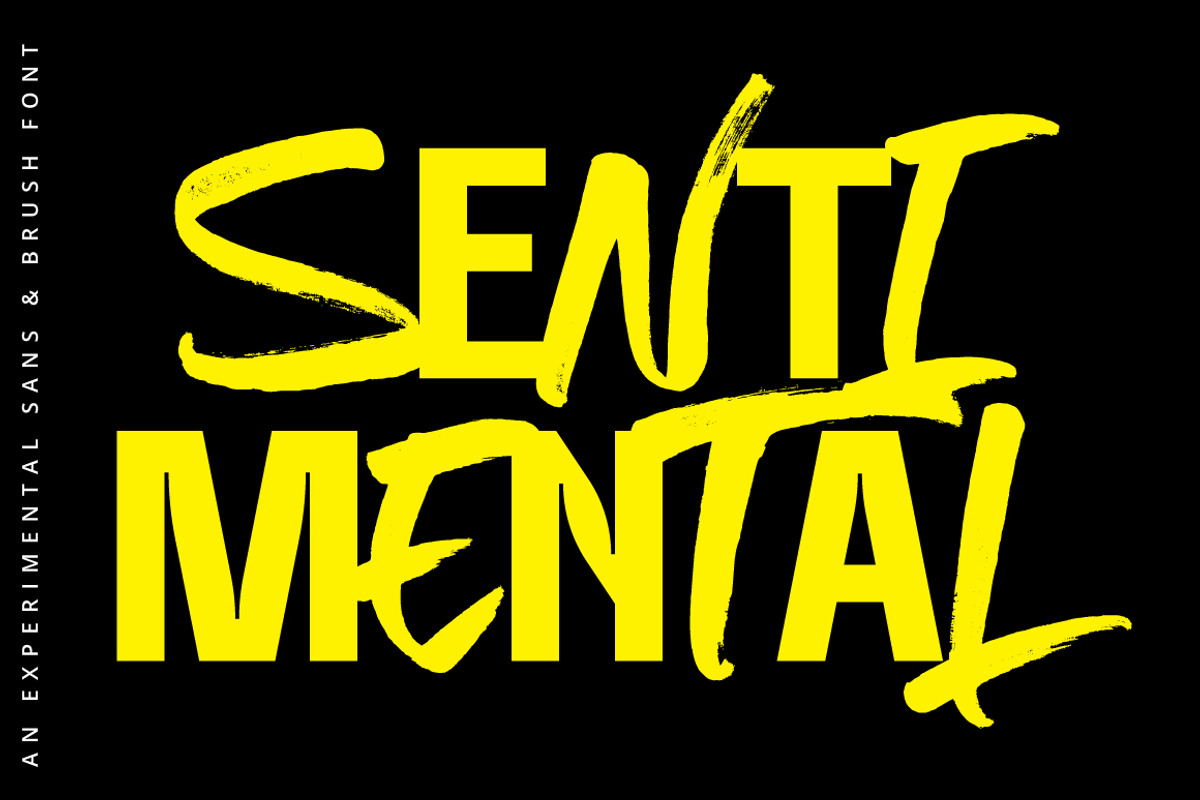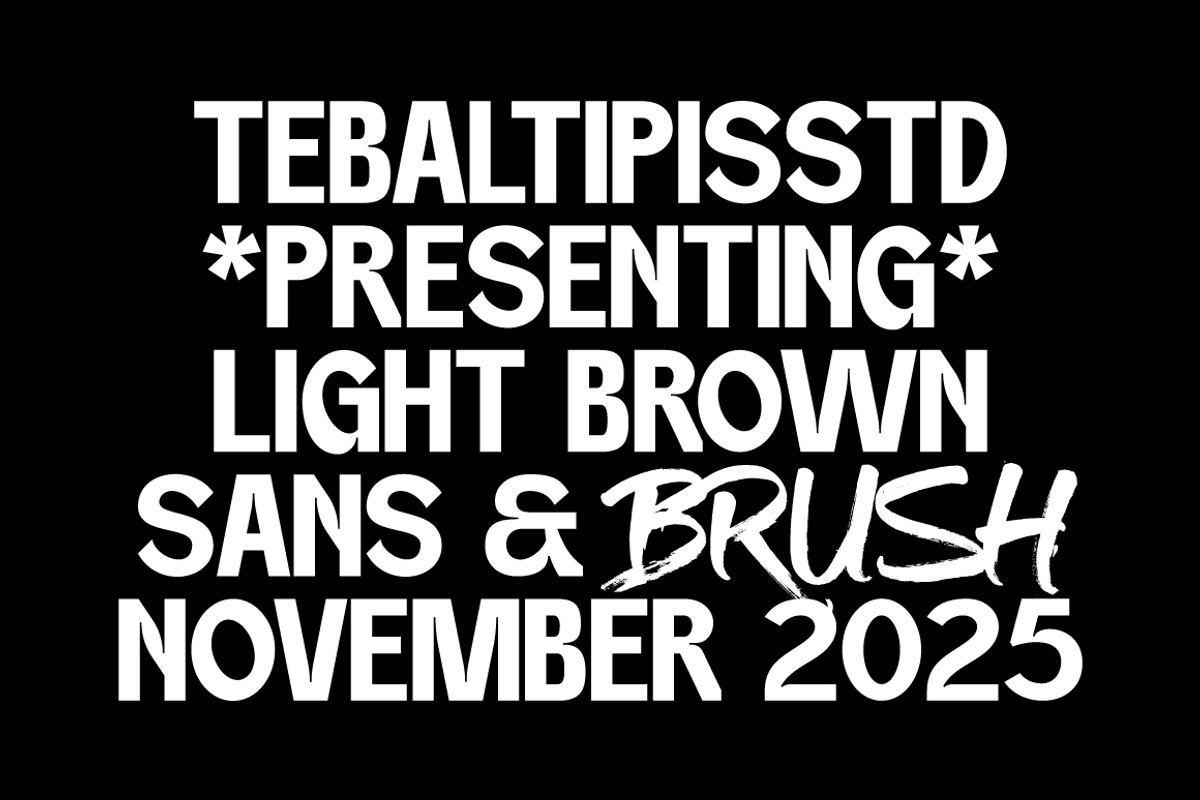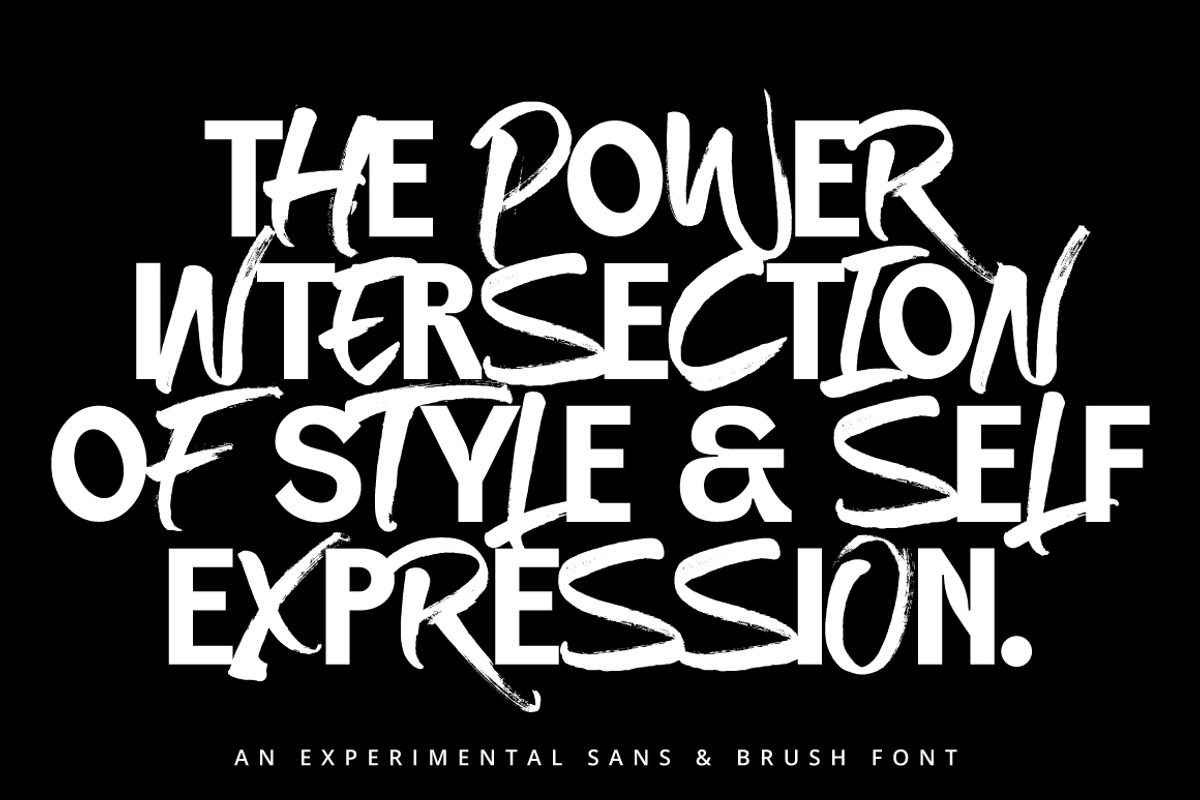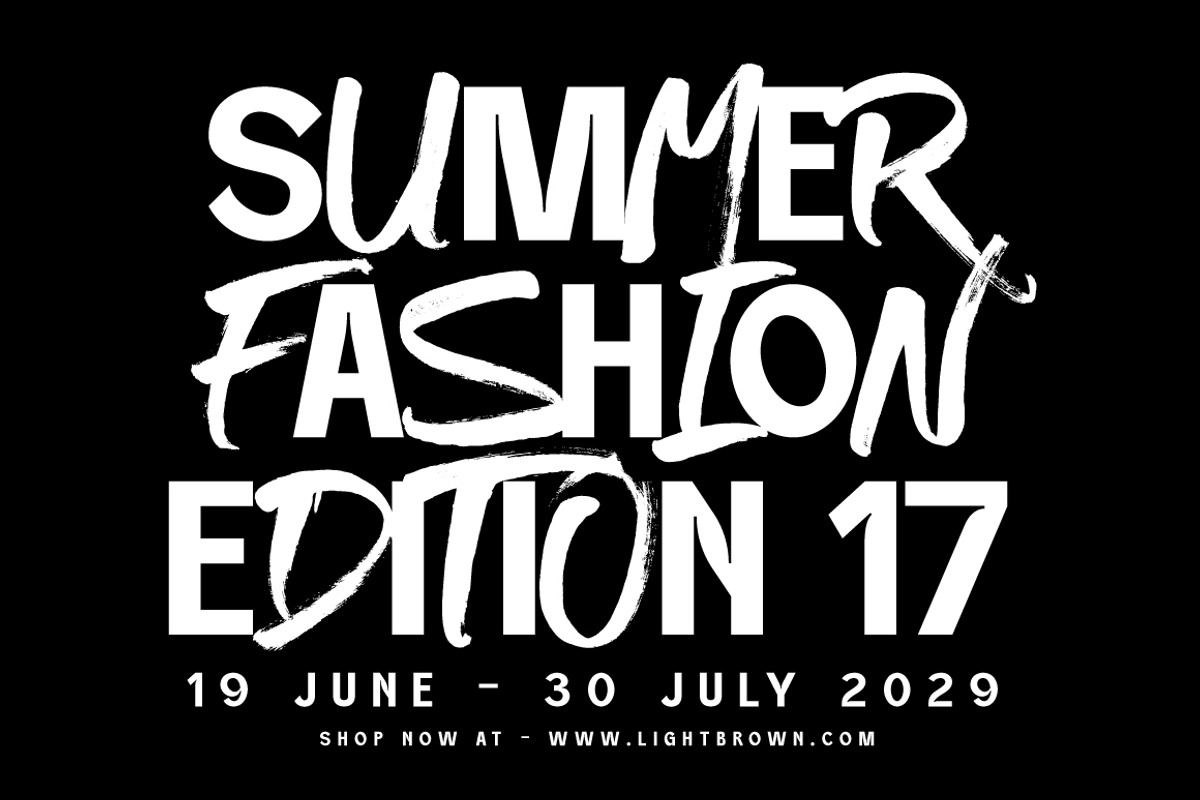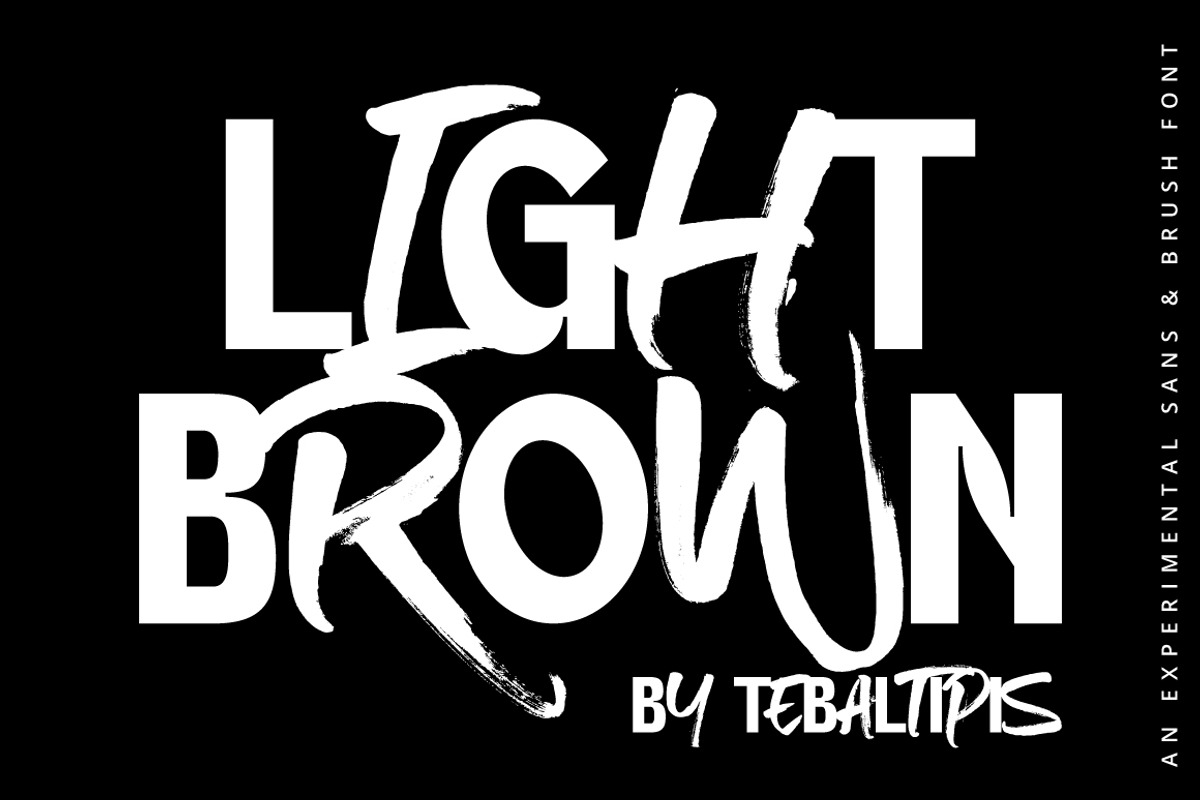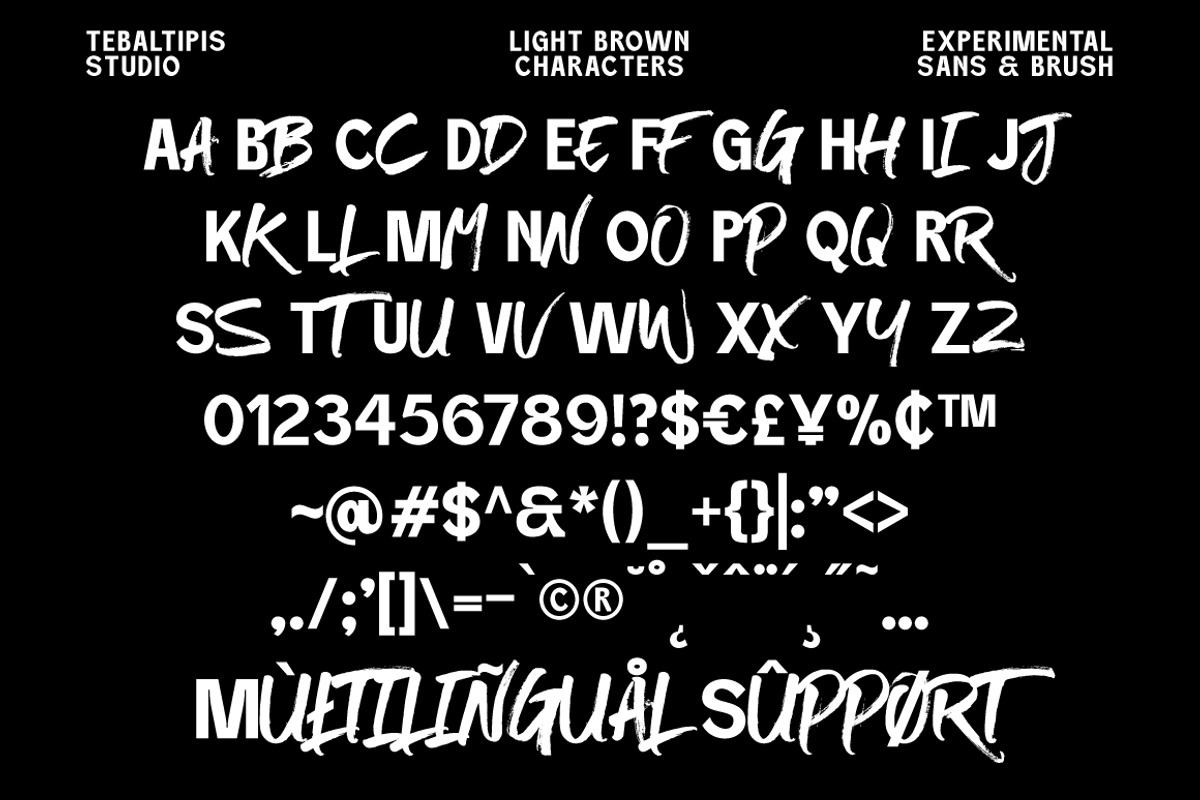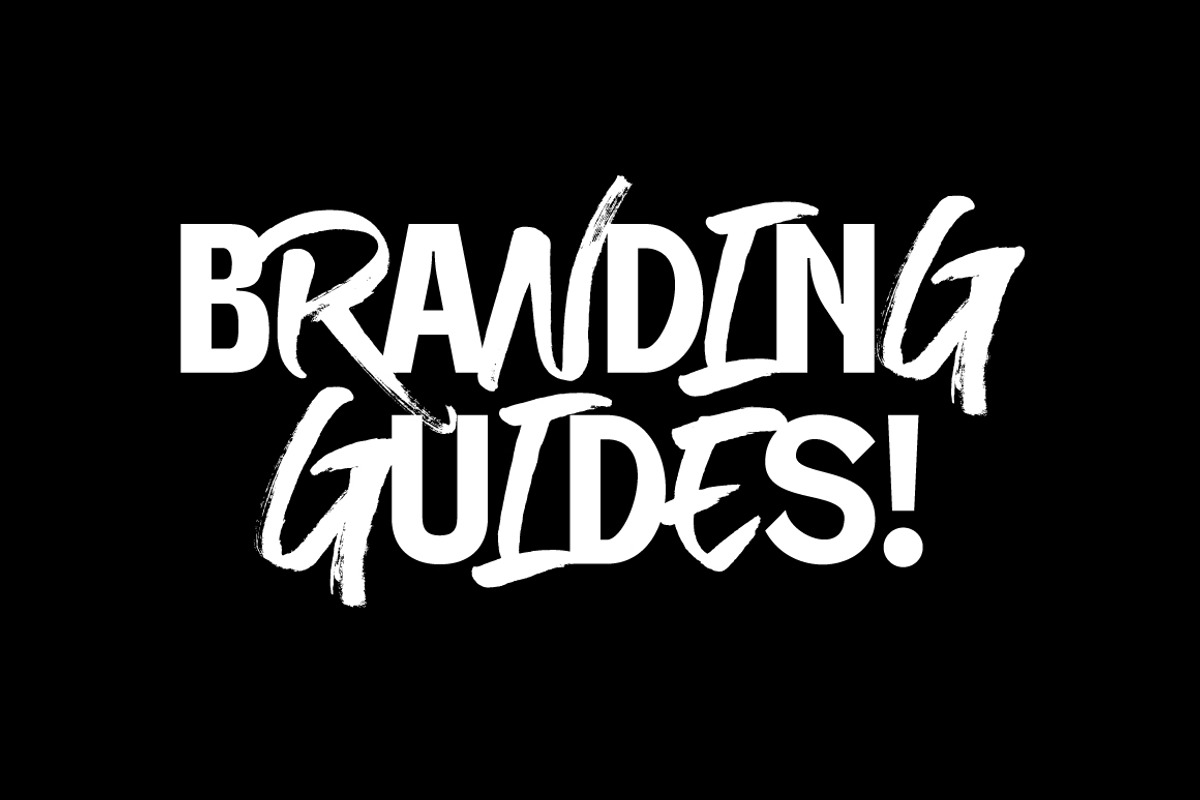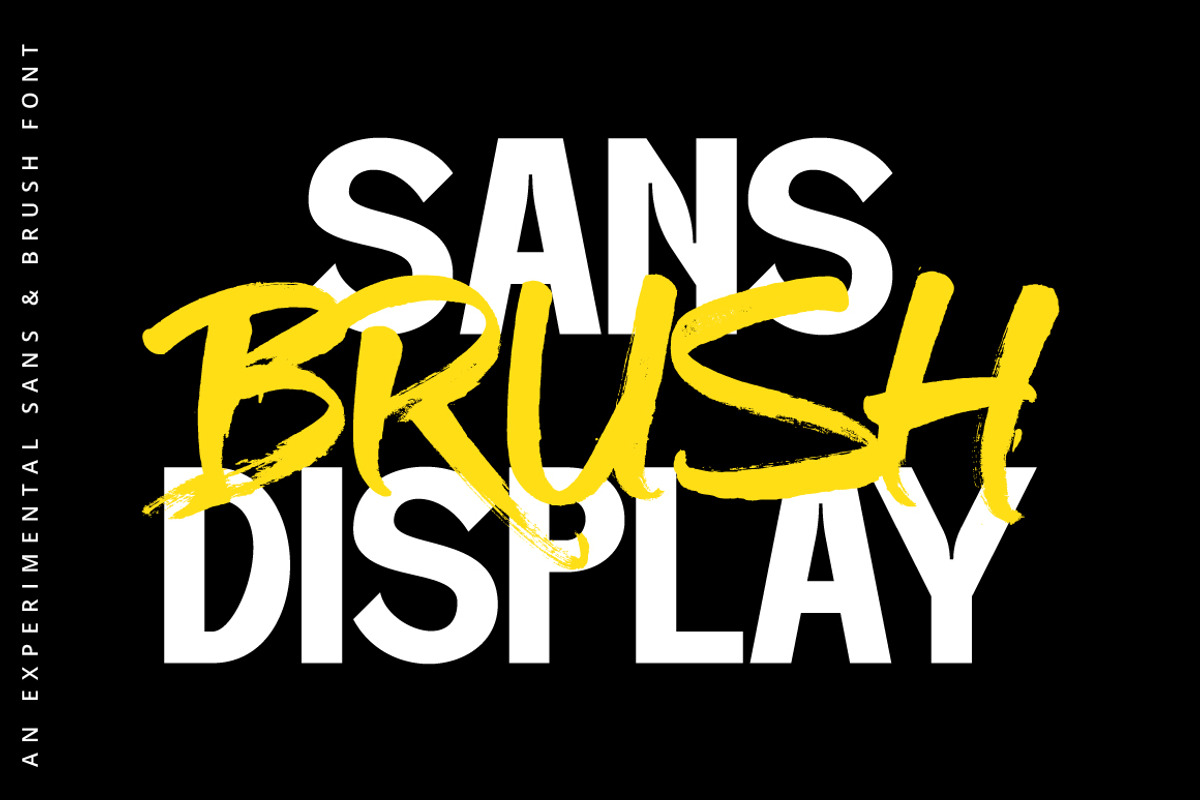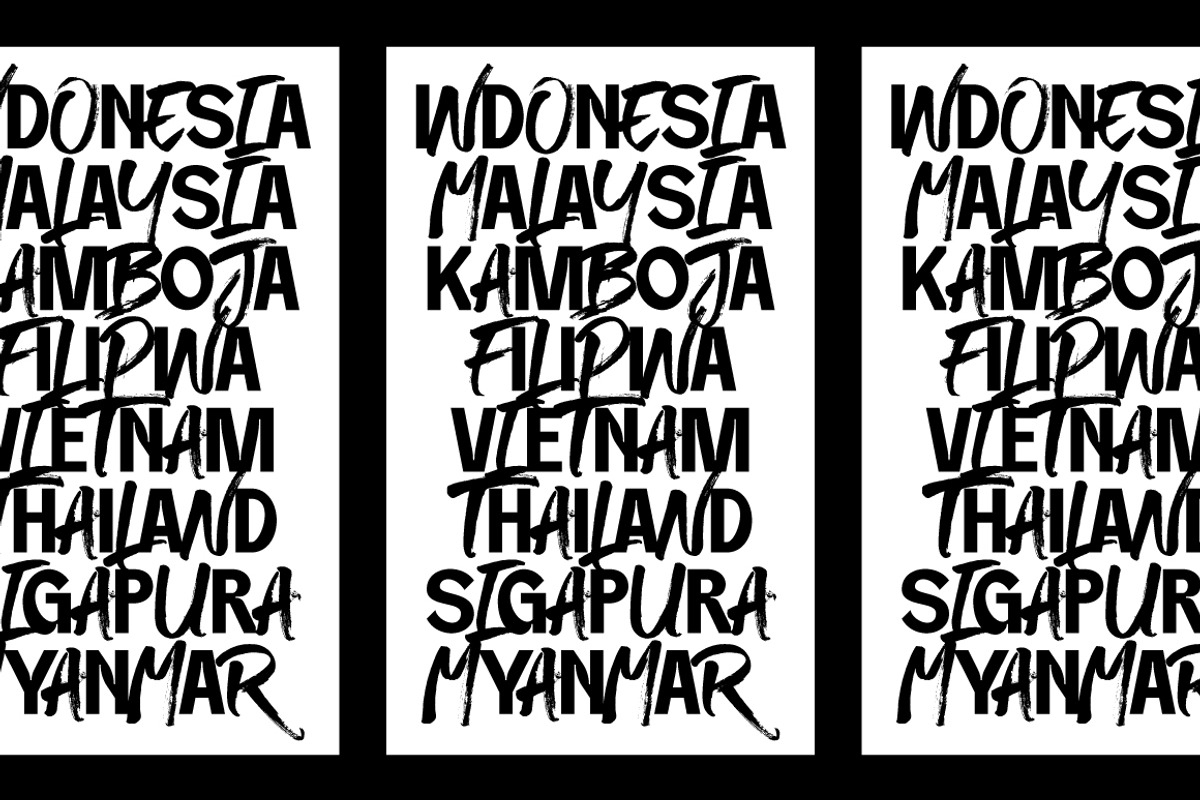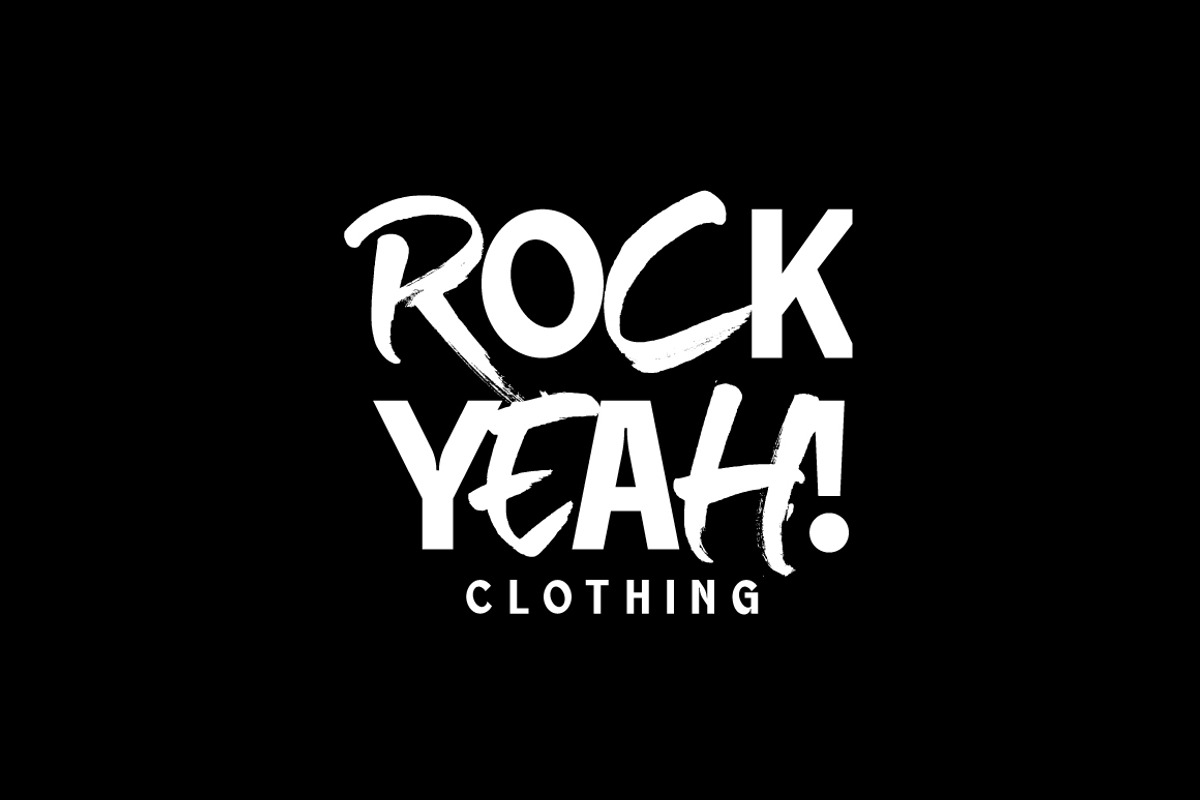
Light Brown - Experimental Display
Light Brown is a bold and expressive display font that perfectly blends clean sans-serif structure with energetic brush strokes. Designed to make a statement, this font brings creativity, movement, and attitude to your design projects.
Whether you're crafting posters, album covers, branding, or social media visuals, Light Brown adds a modern yet handcrafted vibe that instantly grabs attention.
Light Brown Features :
- Combination of Sans and Brush styles
- Perfect for bold headlines and artistic layouts
- High readability with a strong visual impact
- Available in uppercase letters and multilingual support